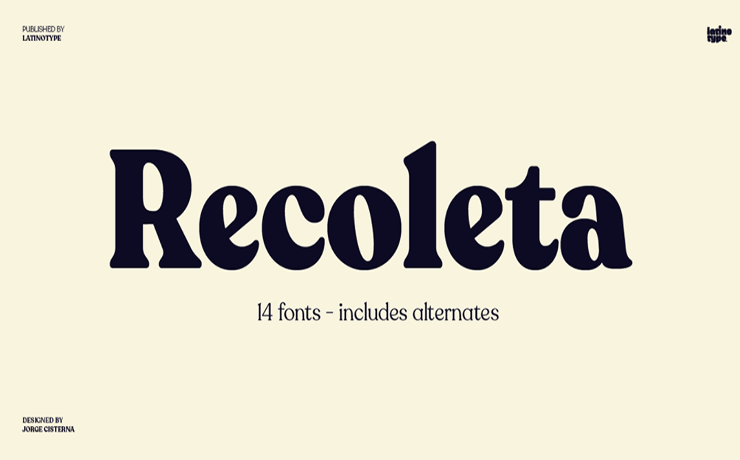
Like a melting pot, Recoleta combines many different aspects from typefaces of the past to create something new, unique, and with a modern flavor.
Due to its soft shapes found has combined a beautiful and familiar typeface that looks amazing on a logo or business card, giving them a unique look.
This elegant serif typeface was designed by Jorge Cisterna and published by Latinotype in 2018.
This typeface is designed using a scroll of various popular typeface types from the 1970s, which is why it has softer and gentle shapes that can be used with its style.
This font looks great when used for logo designs, titles, posters, flyers, business cards, cloth printing, official cards, precise emblems, and so on.
It can make better pair with fonts like Averia Serif Libre Font by Dan Sayers and Fin Serif Display Font by J Blake Harris.
This font family comes in 14 different styles that possess Open Type features. This font pack also includes stylistic alternates offers a number of different characters.